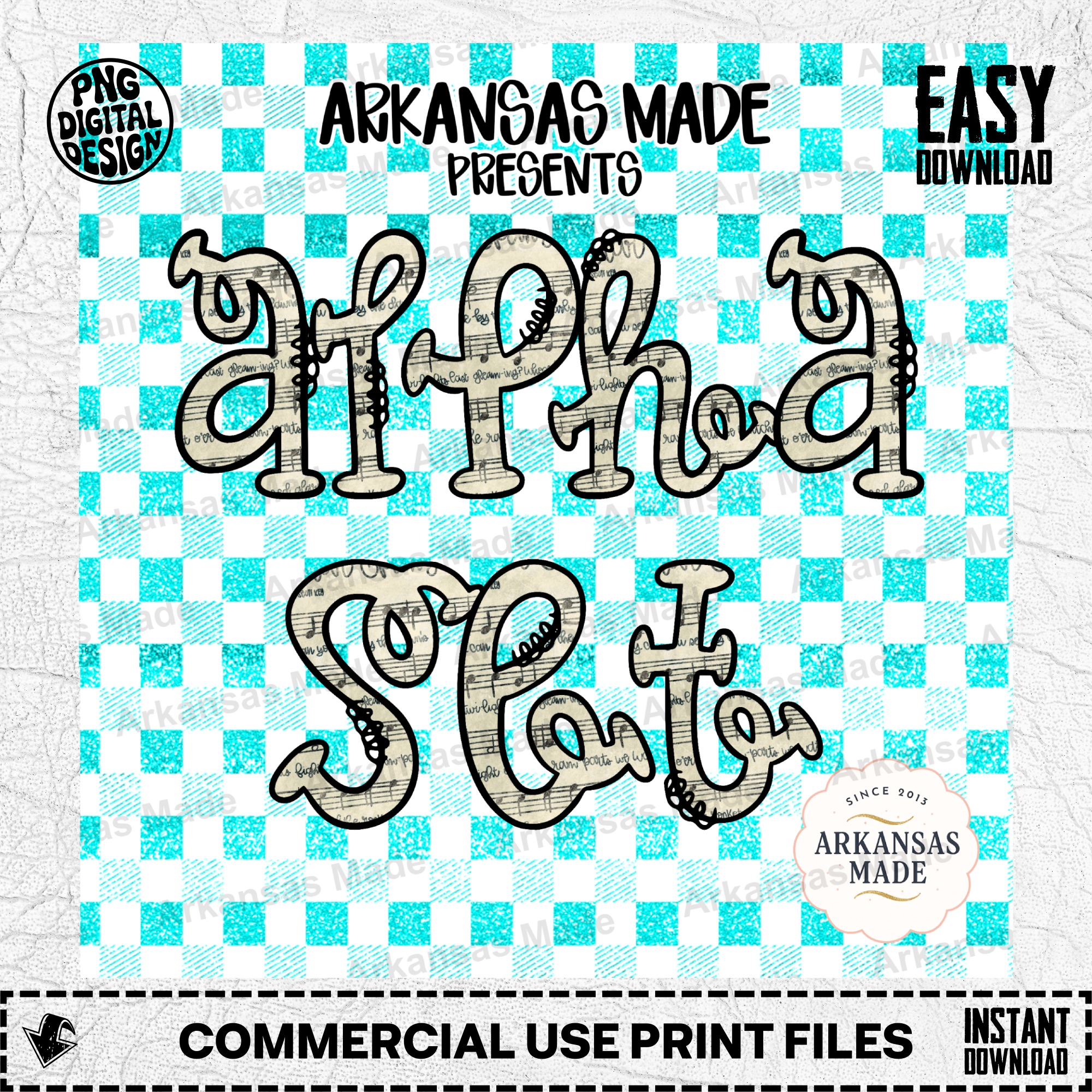
Music Sheet Alpha Set PNG, Vintage Musical Notes Alphabet Letters, Printable Digital Font for Music Lover Designs, Instant Download
Elevate your designs with this enchanting Music Sheet Alpha Set PNG, featuring vintage musical notes and alphabet letters perfect for any music lover. Get instant digital access today! This unique collection captures a nostalgic and artistic vibe, making it ideal for music teachers, musicians, and crafters alike. Create personalized gifts, bespoke apparel, or distinctive decor for birthdays, recitals, or any special occasion celebrating the art of music.